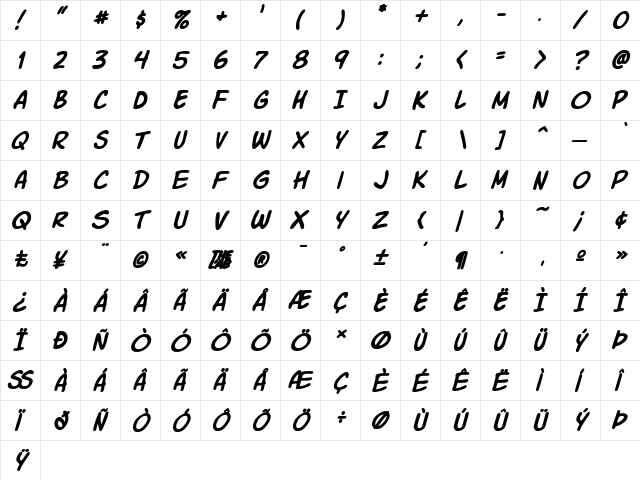
Komika Slick Italic
Design Context for Komika Slick Typeface
Komika Slick takes a measured approach to typography — its balanced proportions and neutral character make it a reliable workhorse for both digital and print work. Its italic angle brings a sense of urgency and motion to the letterforms.
Pro Tip: Try Komika Slick for annotation and caption copy alongside an upright companion — the contrast in angle creates a dynamic but ordered typographic system.